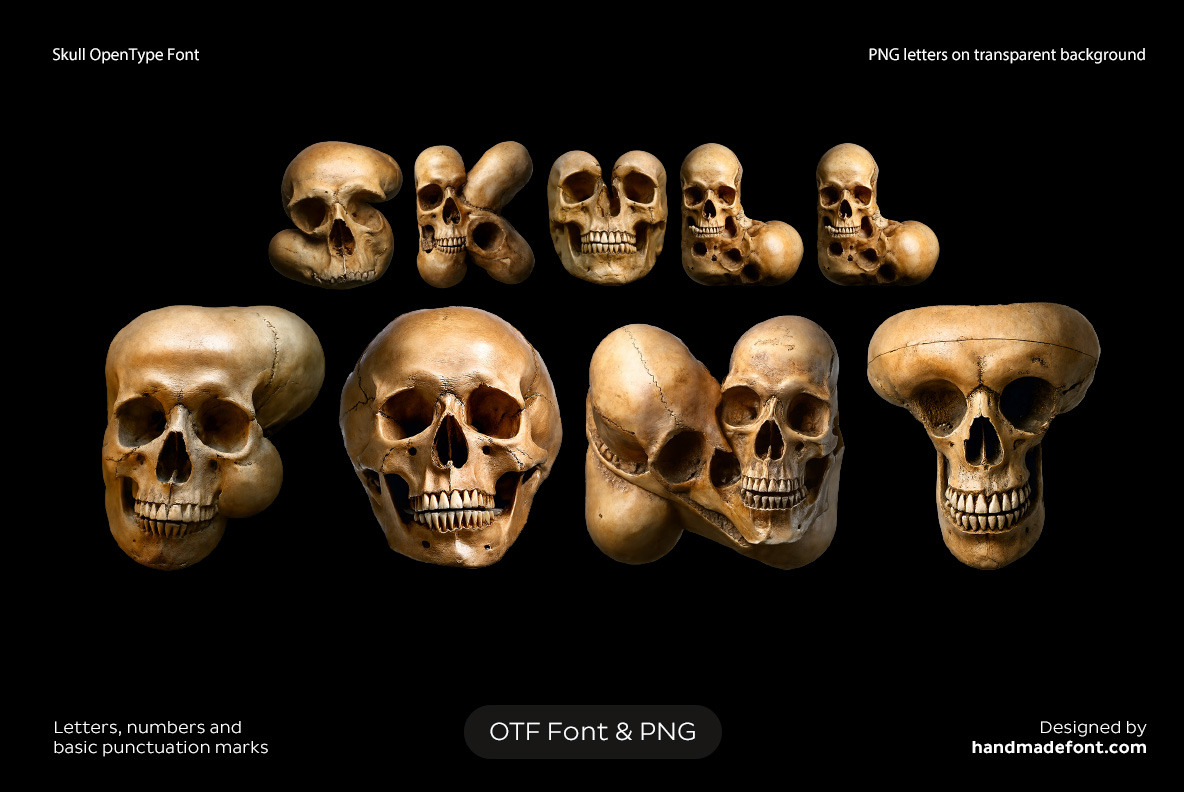
Skull Font
Skull Font is a bold and edgy typeface inspired by dark aesthetics and Gothic art. Each letter is intricately designed to resemble a human skull, with haunting details like cracked bones and hollow eye sockets. Perfect for horror themes, Halloween designs, or rock and metal branding, Skull Font adds a spine-chilling touch to any project. Its sharp lines and eerie details bring a sinister vibe to text, making it unforgettable.